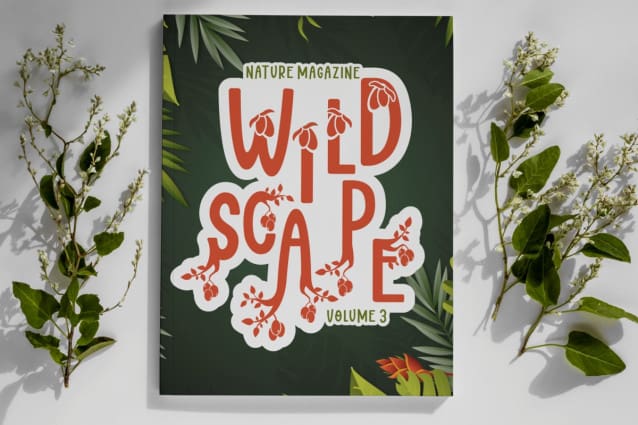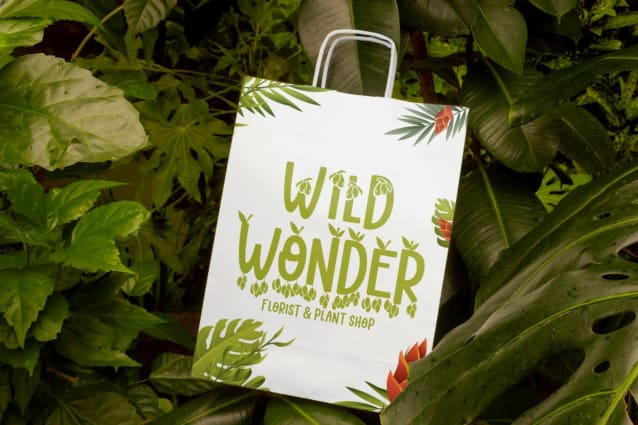
Fern Fronds Font
Fern Fronds Font is a display font that features quirky letters with intricate details, mirroring the whimsical curves and bends of leaves and flowers. The font exudes a playful yet elegant vibe, making it a perfect choice for a variety of creative projects. The font offers various styles that align with its nature theme, giving you the freedom to use each style independently or mix them for a richer visual experience. It’s not just a font; it’s a tool equipped to bring your nature-themed events or projects to life with its vibrancy and character.